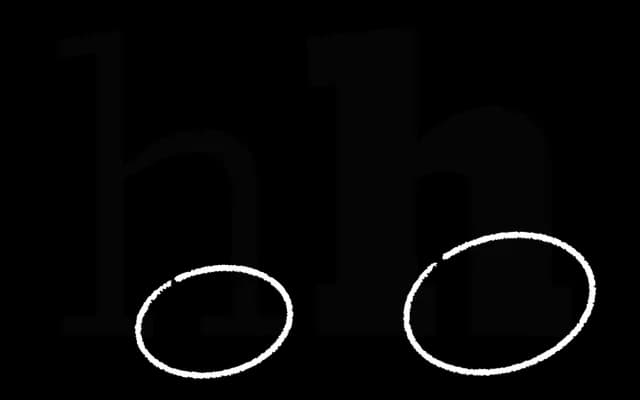
A slab serif in 8 weights with matching italics, drawn with a naturalist precision inspired by entomological collections at the California Academy of Sciences.
Lettermatic describe Bezzia as a new evolution of the slab serif, with its design vocabulary rooted in the entomology collections at the California Academy of Sciences. Sixteen styles run from Hairline to Ultra with matching italics, and the design distinguishes itself through a continuous bowl-and-tail on the 'g', a split-bar fraction system, and selective serif omission at heavier weights to protect interior negative space. Coverage runs to 200-plus languages, with lining and old-style figures, tabular figures, circled figures and directional arrows rounding out an extensive glyph set.
Bezzia is explicitly described as a slab serif typeface. Its design mixes sharp beak terminations with round hook terminations, and features distinctive slab serifs throughout, placing it firmly in the slab category.